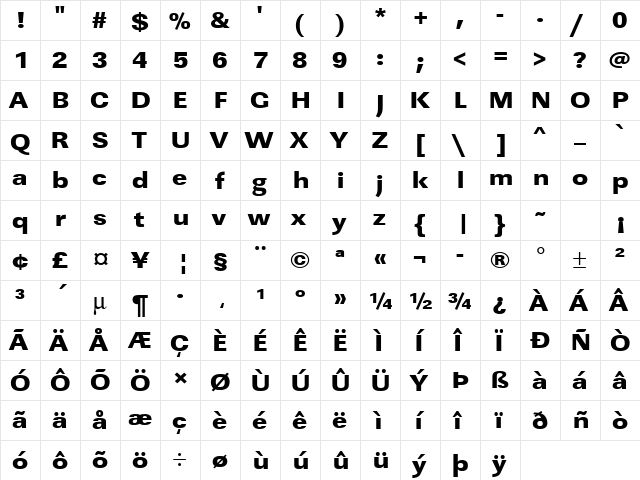
URWLinearTUltBolExtWid Regular Font Preview
URWLinearTUltBolExtWid Regular
Design Context for URWLinearTUltBolExtWid Typeface
URWLinearTUltBolExtWid takes a measured approach to typography — its balanced proportions and neutral character make it a reliable workhorse for both digital and print work.